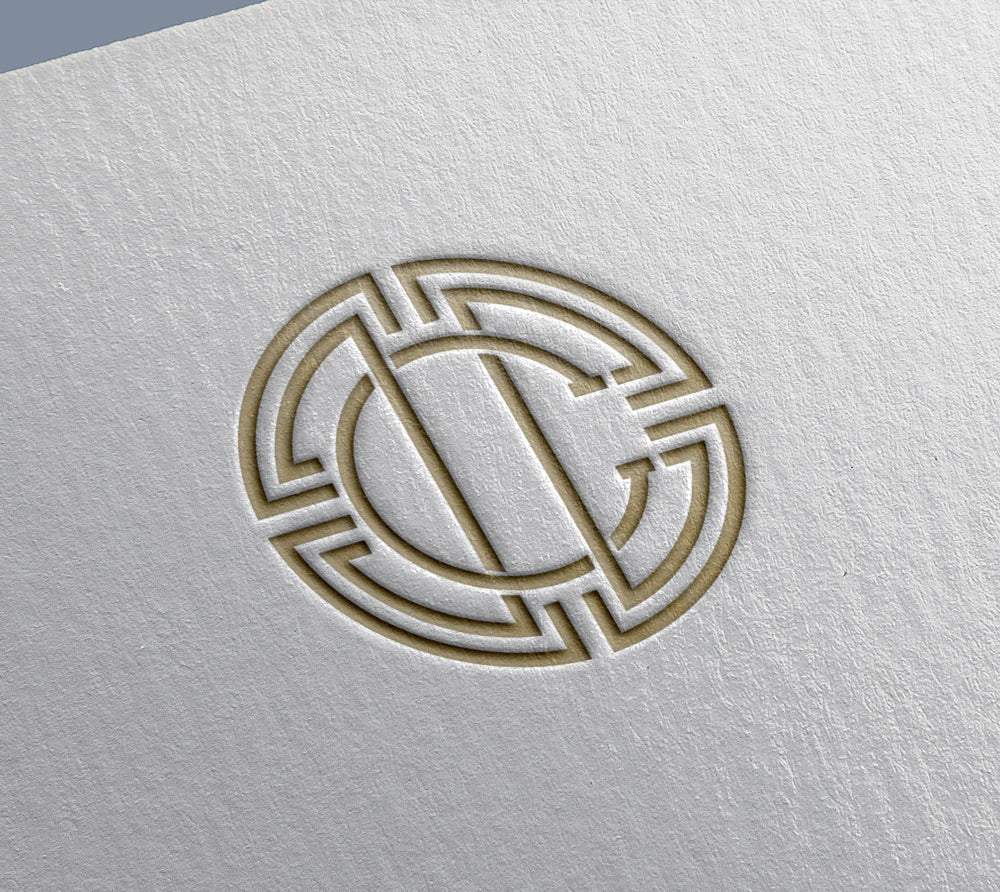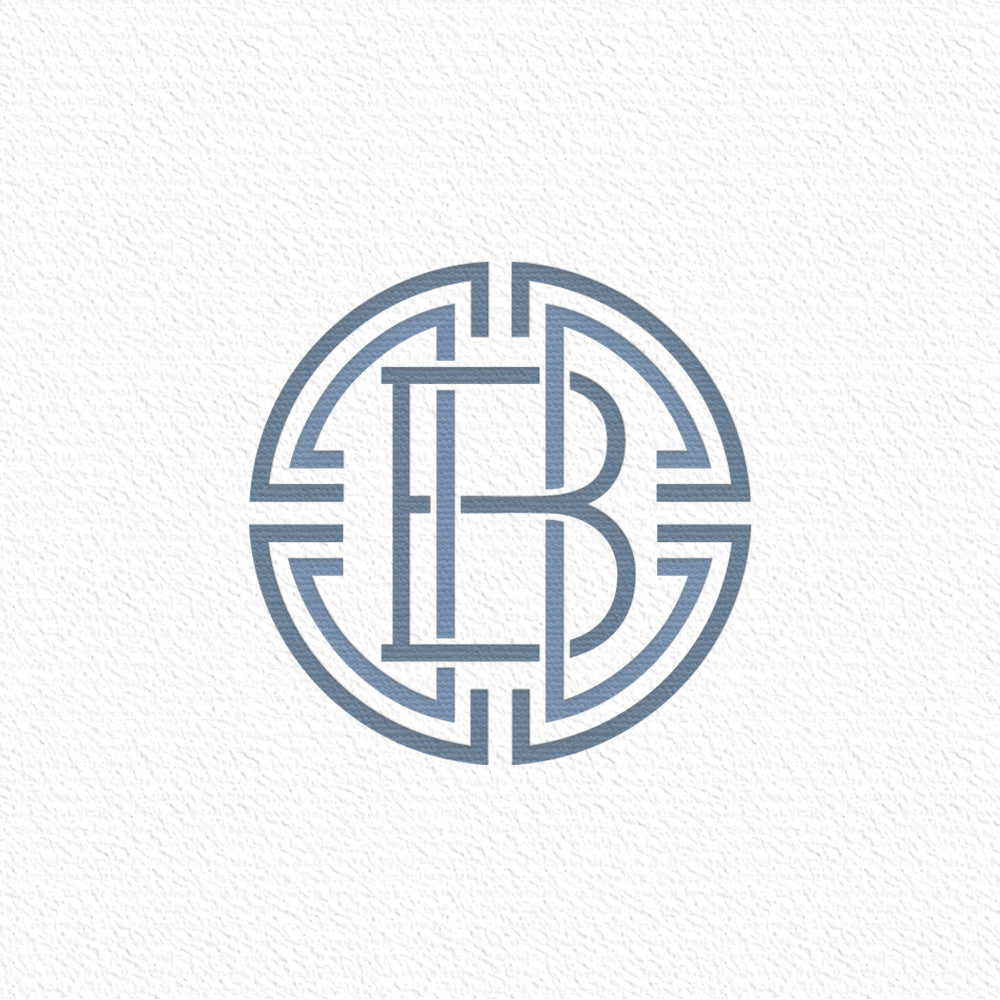
Single Medallion Font for Print
Our Single Medallion Font is inspired by Greek designs. This beautiful collection of 26 medallion letters includes an additional 6 frames featuring variants of the medallion design.